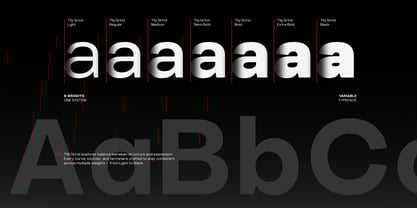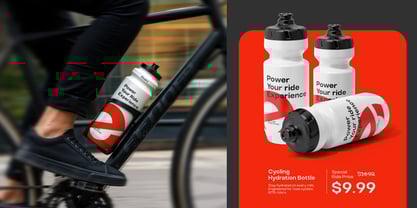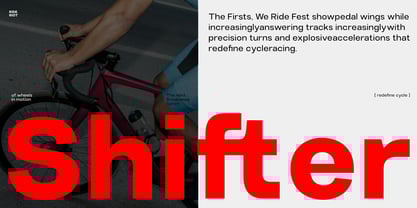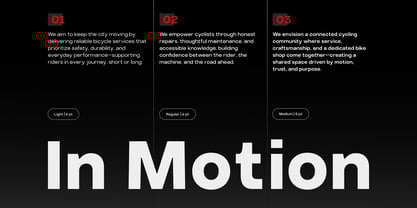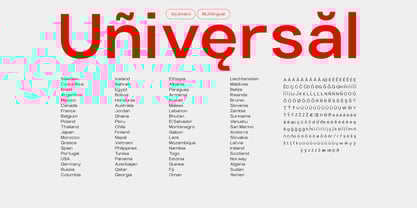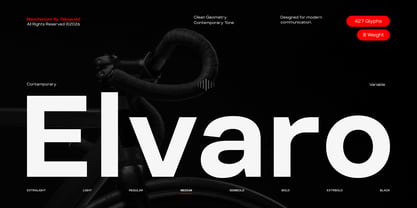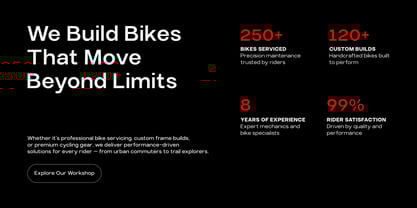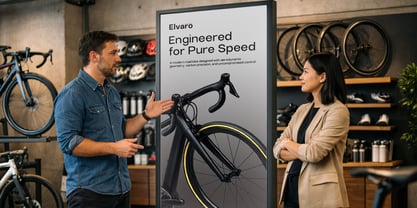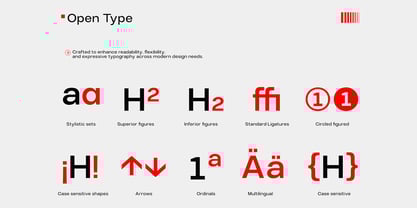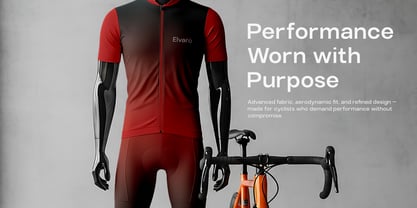
TBJ Elvaro
by Taboja Studio
The TBJ Elvaro Font Family was designed by Yusilo Oktaprima Ardani and published by Taboja Studio. TBJ Elvaro contains 7 styles and family package options. More about this family
TBJ Elvaro is a modern grotesque sans serif type family designed for clarity, versatility, and contemporary visual communication. It combines clean, rational structures with subtle humanist details, creating a professional yet warm tone that works across both print and digital environments. Built as a flexible font family with multiple weights and styles, TBJ Elvaro is optimized for branding, editorial design, user interfaces, web typography, and packaging. Its balanced proportions and consistent rhythm ensure excellent readability while maintaining a strong, confident presence in display use. Ideal for visual identities, logos, magazines, corporate communication, and UI systems, TBJ Elvaro delivers a timeless grotesque aesthetic with modern precision a reliable type solution for designers seeking functionality, neutrality, and character in one family.